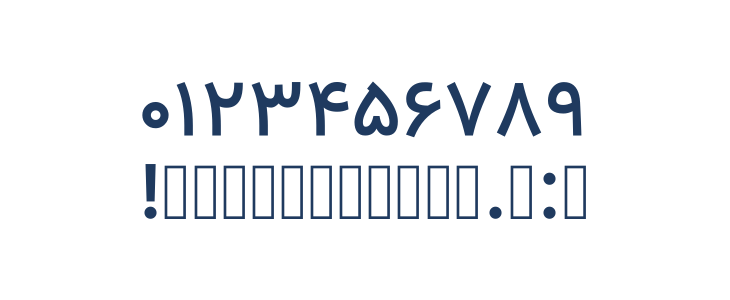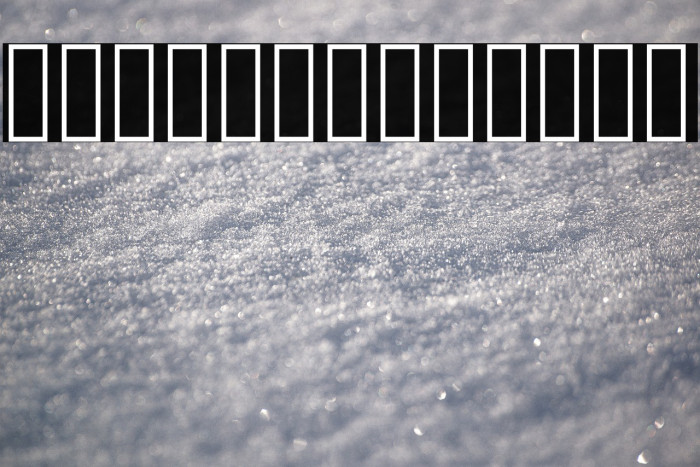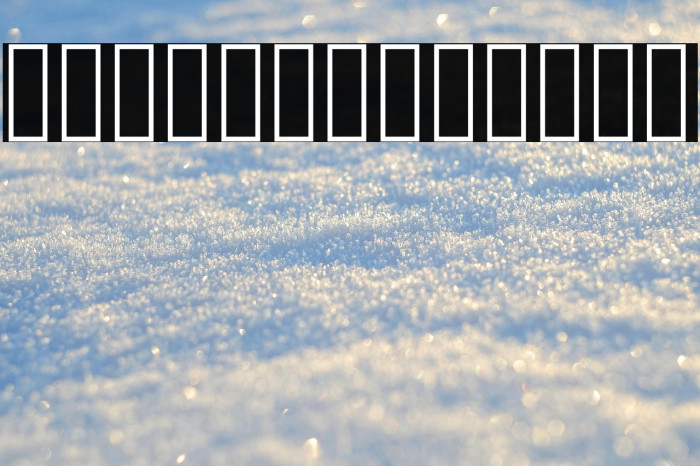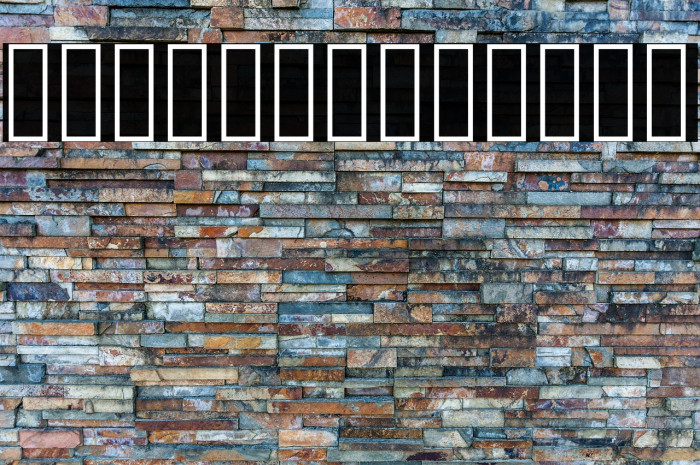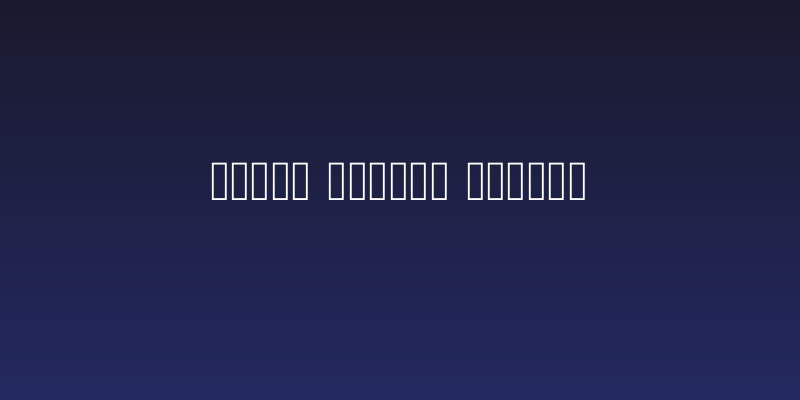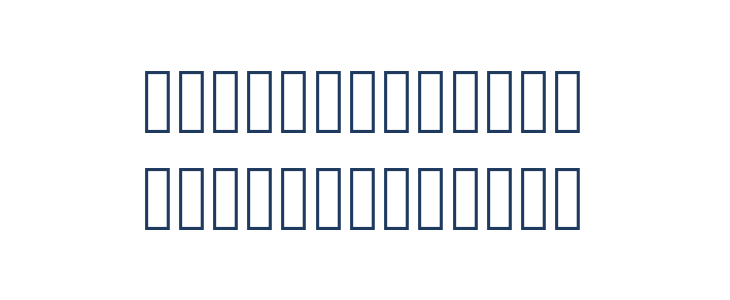
Vazir Medium FD-WOL Font
Vazir Medium FD-WOL Description
This font features a unique and modern design with a focus on geometric shapes and clean lines. The characters are bold and slightly condensed, giving a strong and impactful appearance. The numbers are distinct with a playful yet structured style, making them stand out. The special characters maintain the same boldness and clarity, ensuring consistency across all elements. This font is ideal for projects that require a contemporary and assertive look, such as branding, advertising, and digital media.
| Proposed Projects | Branding, advertising, digital media, and signage. |